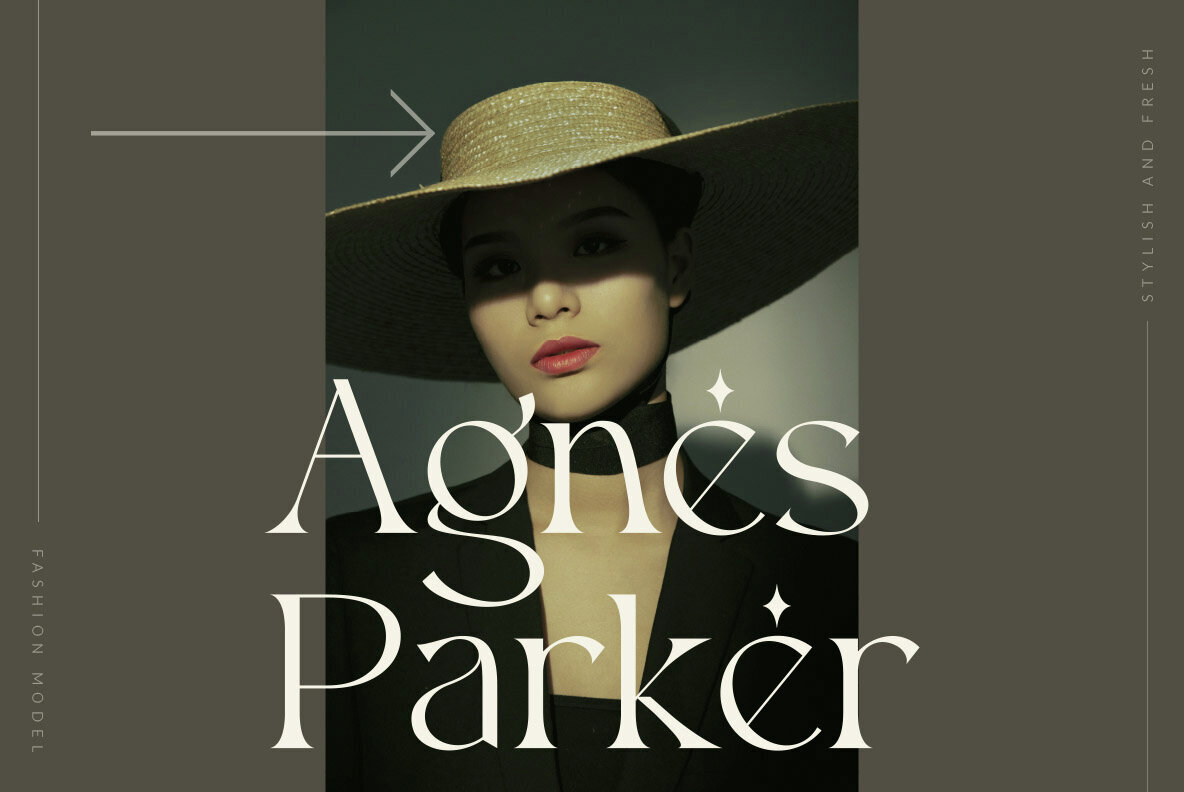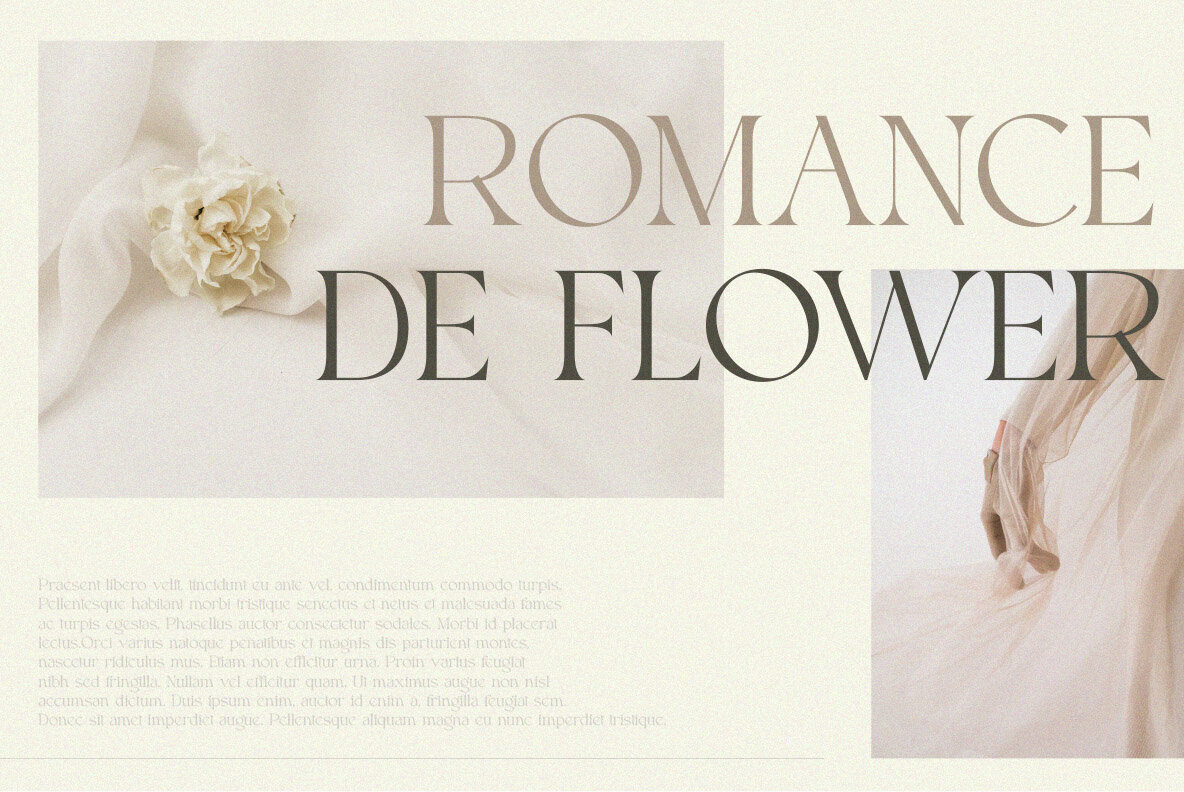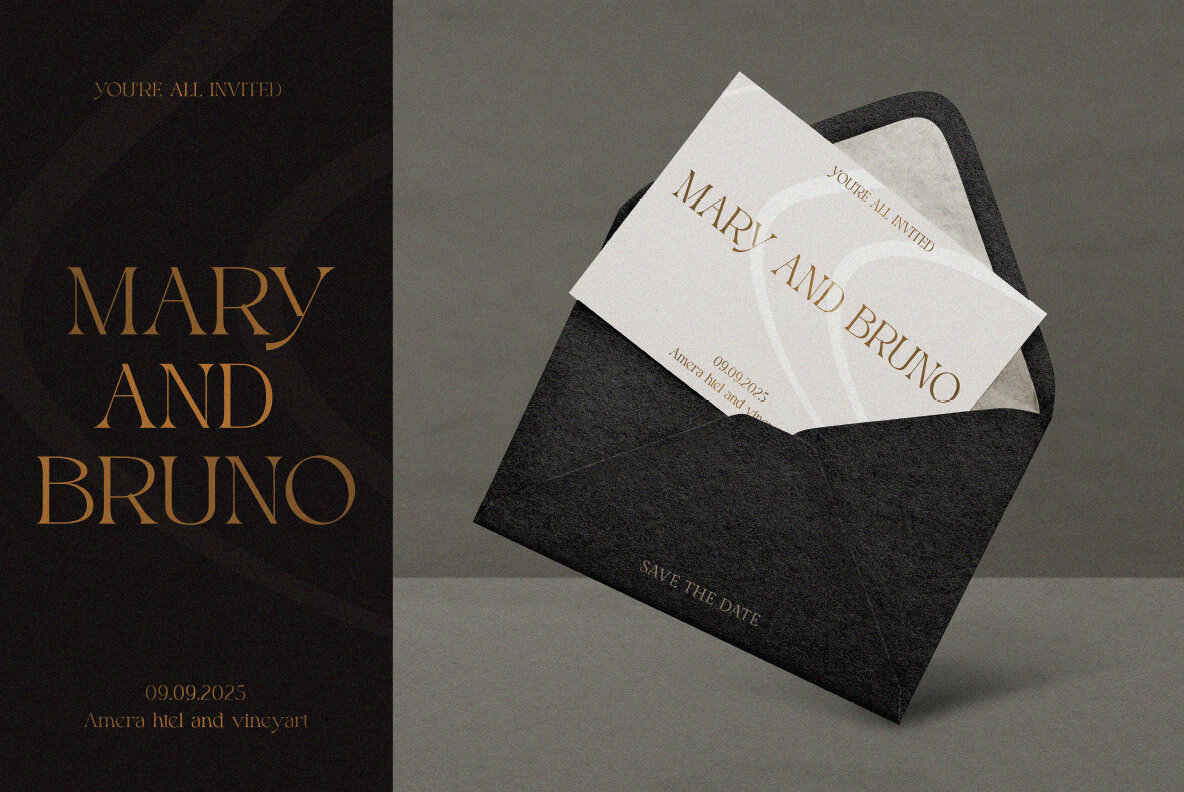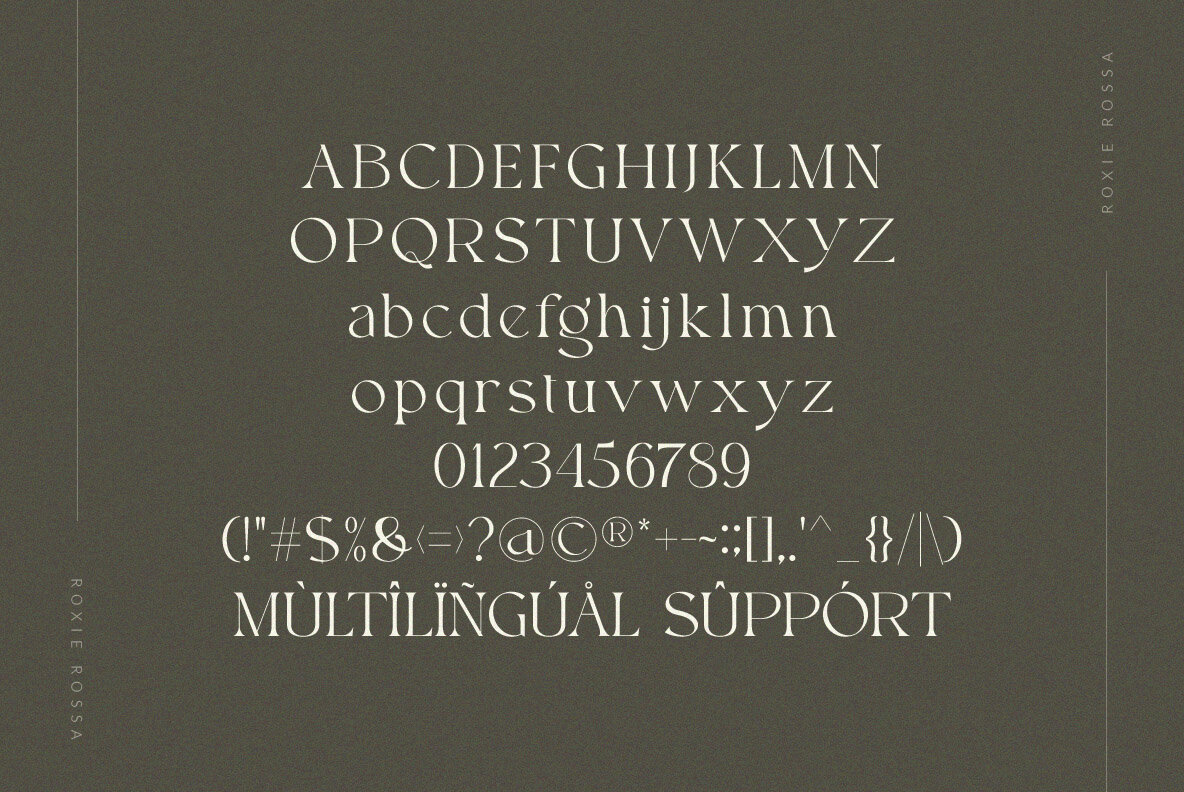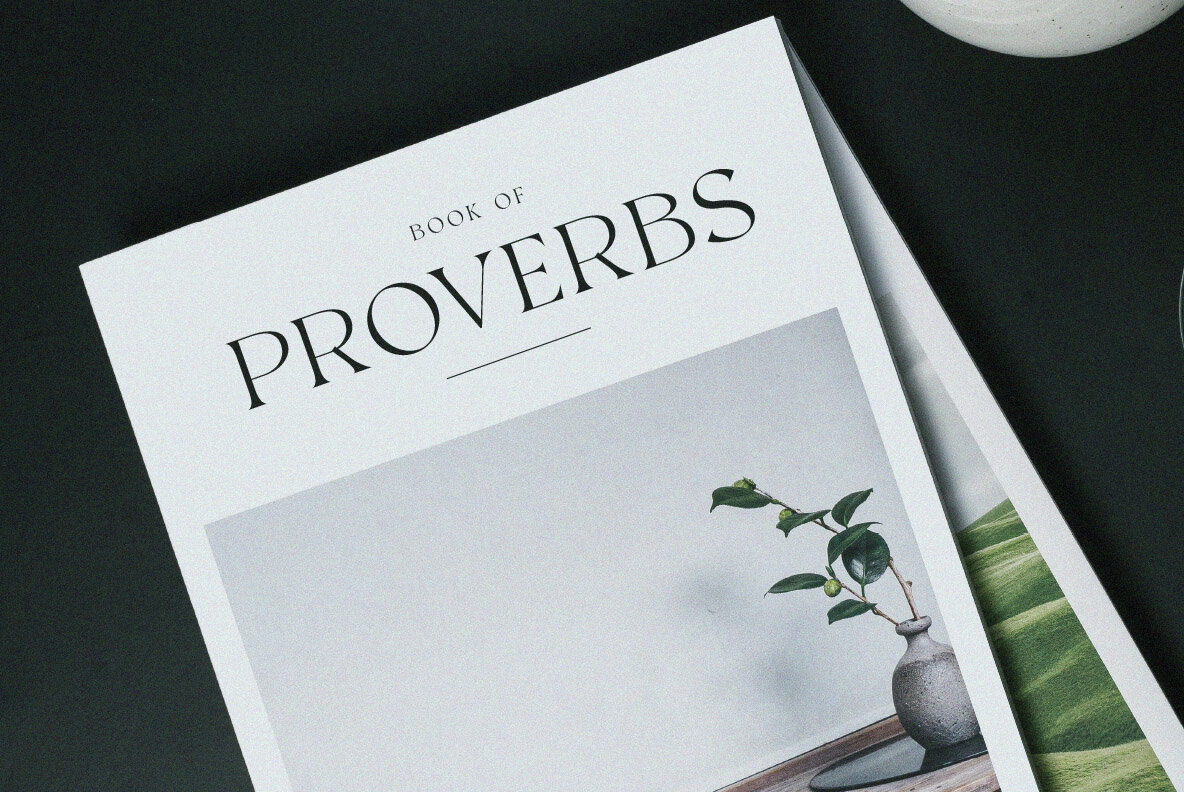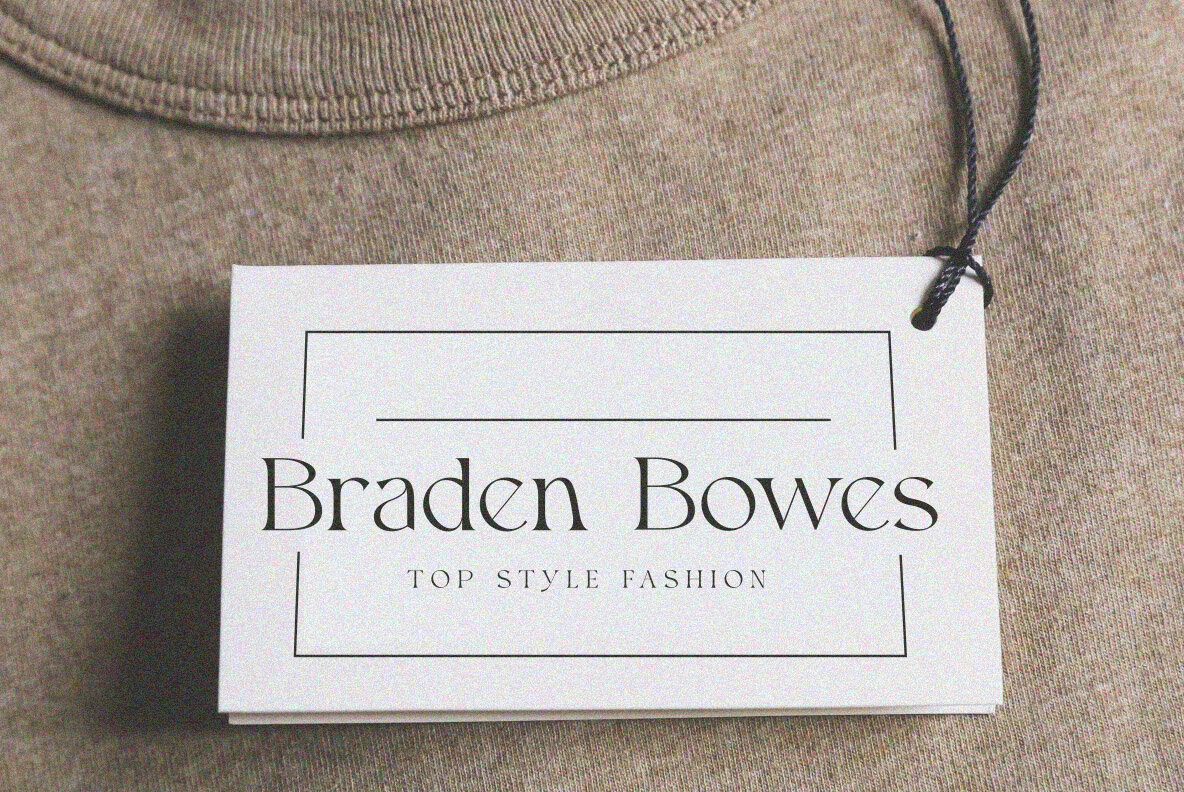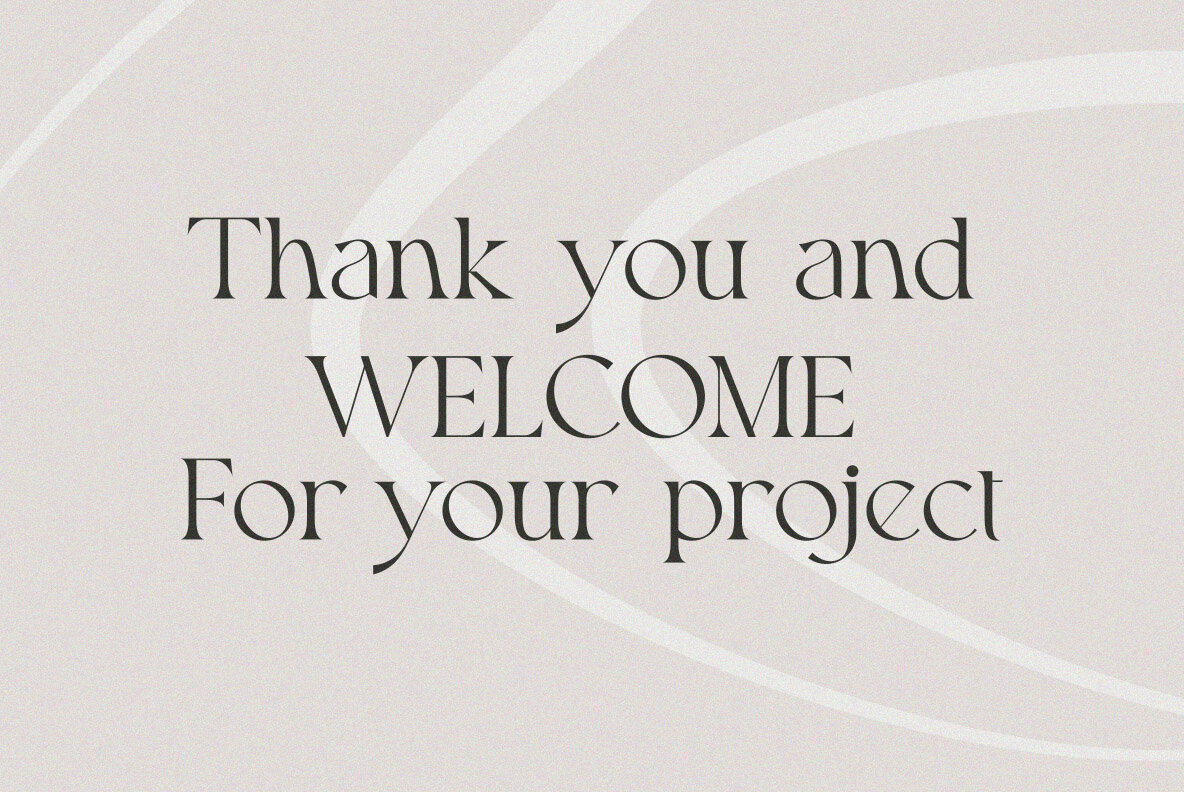
Roxie Rossa Font
Roxie Rossa
Roxie Rossa is a sleek and modern sans serif font that brings a blend of nostalgia and elegance to your designs. Perfectly suited for logos, magazines, and social media, this font effortlessly combines style and functionality. Ideal for designers seeking a touch of sophistication and modern aesthetic, Roxie Rossa is crafted to enhance your creative projects. Roxie Rossa is designed with versatile OpenType features, incorporating ligatures, alternatives, and comprehensive language support, ensuring smooth and adaptable use across different design demands.Roxie Rossa: Elegance in Modern Sans Serif Typography